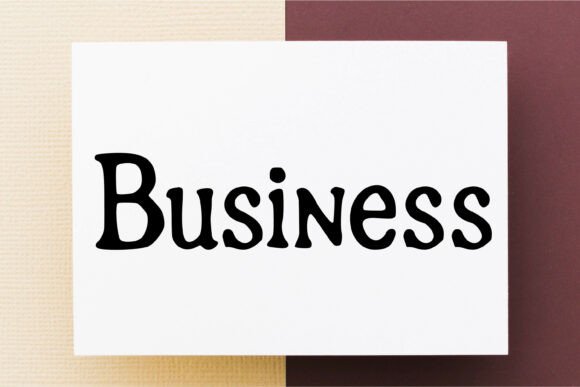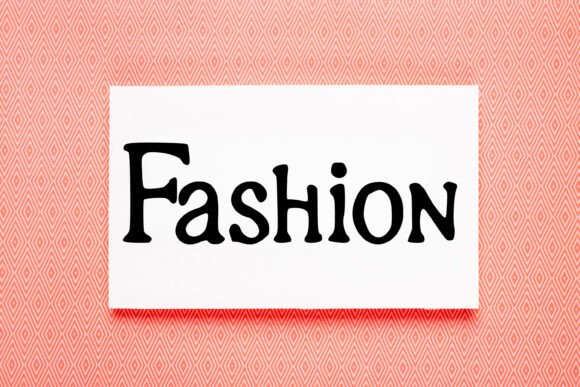
Introduction to Holiday Hearth Font
🔥 Holiday Hearth Font: Warm & Inviting Modern Serif Holiday Hearth Font is a warm and inviting modern serif typeface crafted to bring cozy charm and festive elegance to your seasonal projects.
With its soft curves, playful proportions, and handcrafted character , this font captures the comforting feeling of gathering around the hearth during the holidays Holiday Hearth blends modern serif styling with a friendly, whimsical tone , making it both readable and beautifully expressive .
Key Features of Holiday Hearth Font
Why Choose Holiday Hearth Font?
Holiday Hearth Font offers exceptional quality and versatility, making it a valuable addition to your design toolkit. Whether you’re creating for personal projects or commercial use, Holiday Hearth Font delivers professional results.